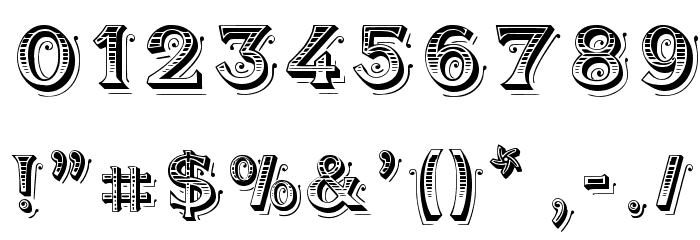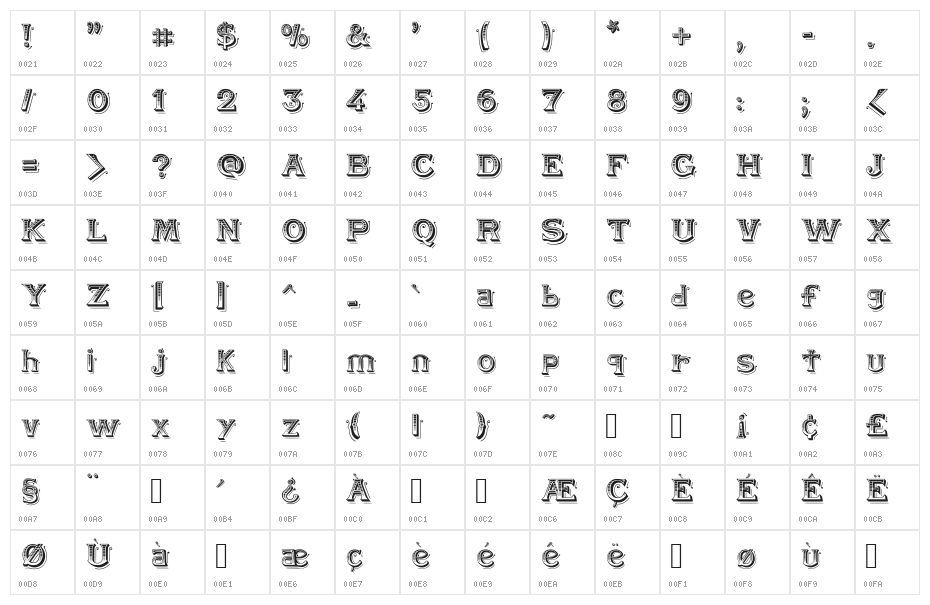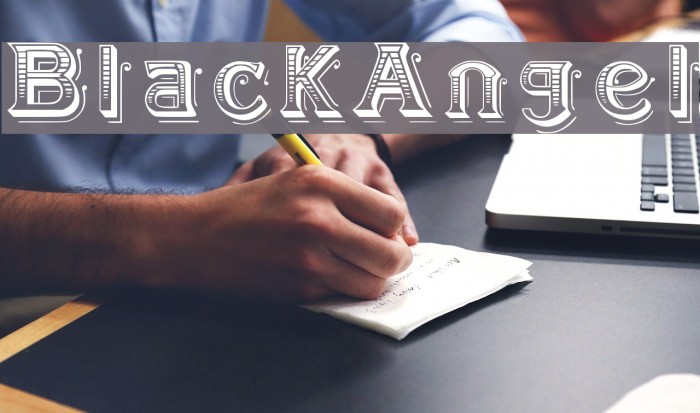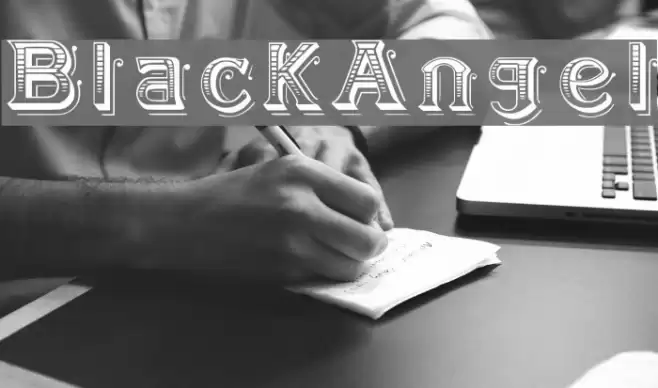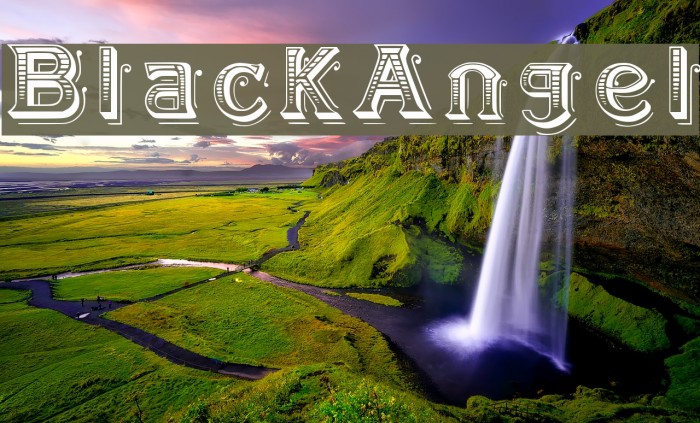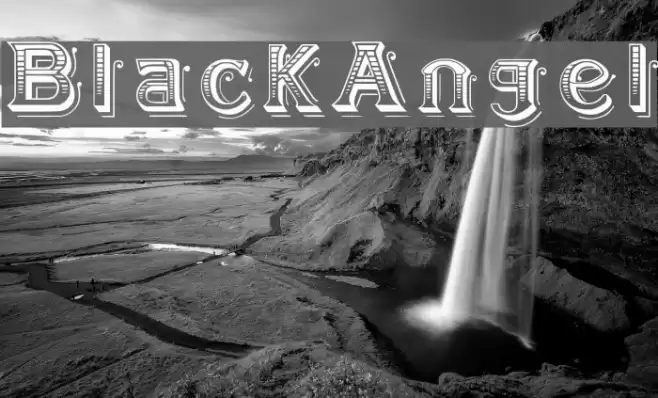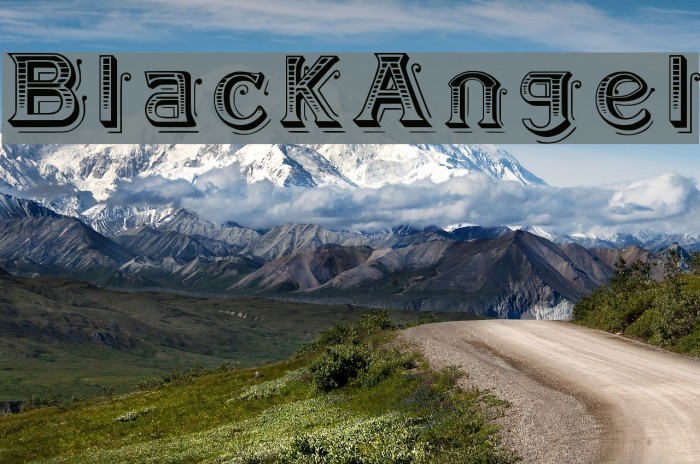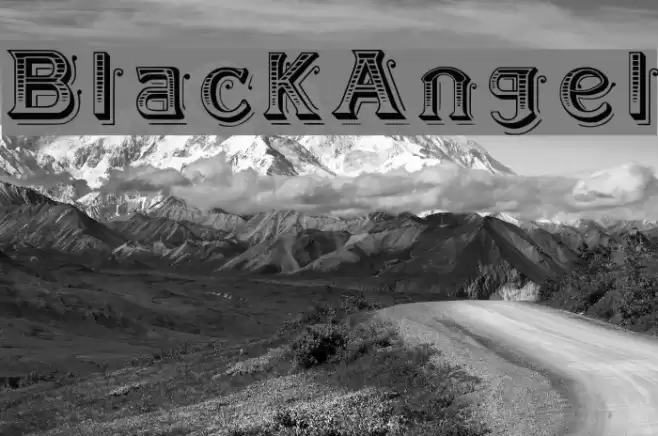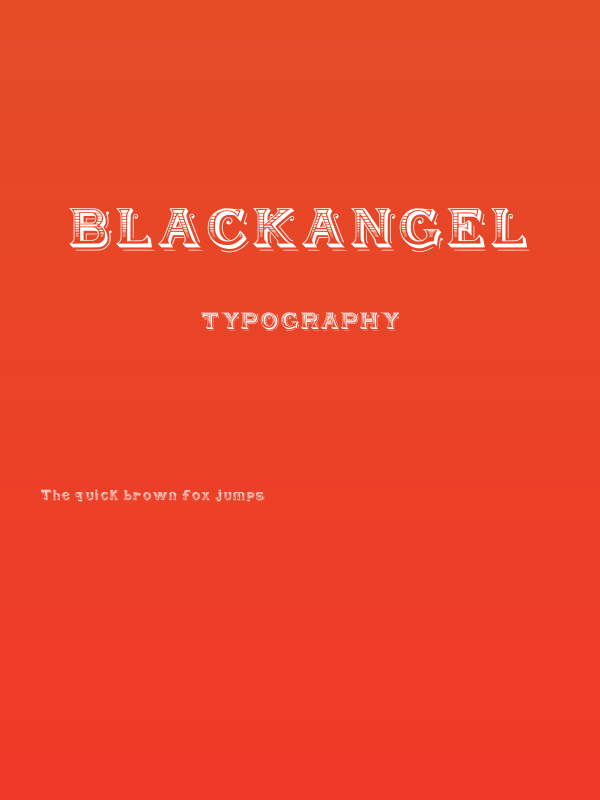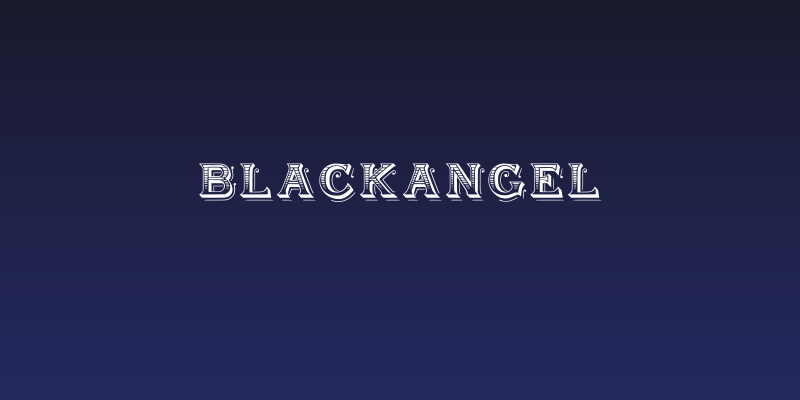
BlackAngel Font
BlackAngel Description
This font features a bold, decorative style with intricate detailing and a three-dimensional effect. The characters are outlined with a shadow, giving them a layered appearance. The serifs are pronounced, adding to the font's vintage and ornate aesthetic. Each letter and number is uniquely styled, with consistent detailing across uppercase, lowercase, and numerals. The special characters maintain the same decorative theme, ensuring uniformity throughout the set. This font is eye-catching and designed to stand out, making it ideal for projects that require a strong visual impact.
| Overall Style | Vintage, Decorative |
| Proposed Projects | Ideal for vintage-themed posters, logos, headlines, and any design requiring a strong, decorative typeface. |